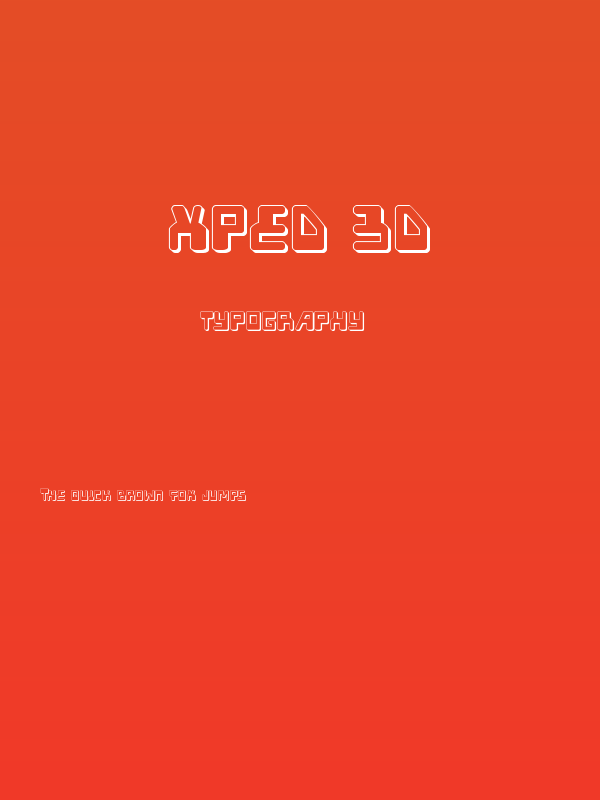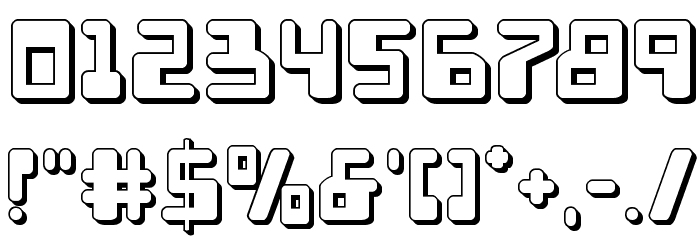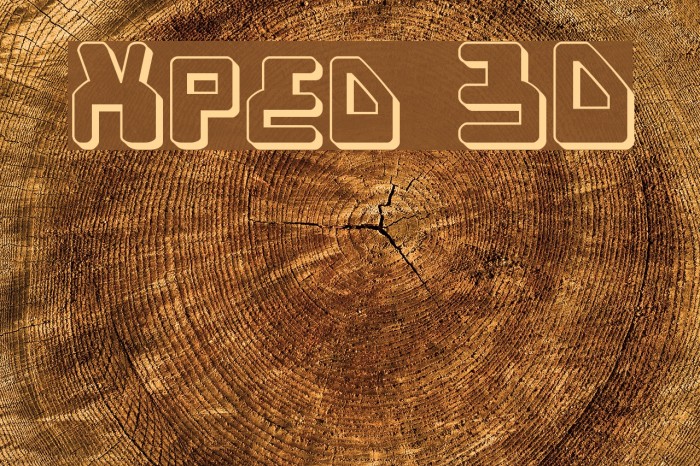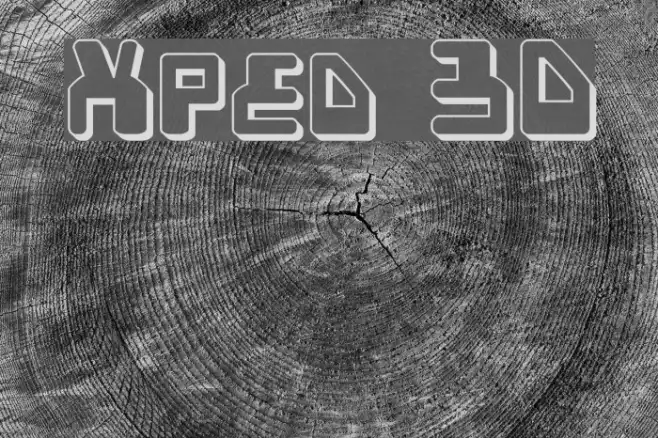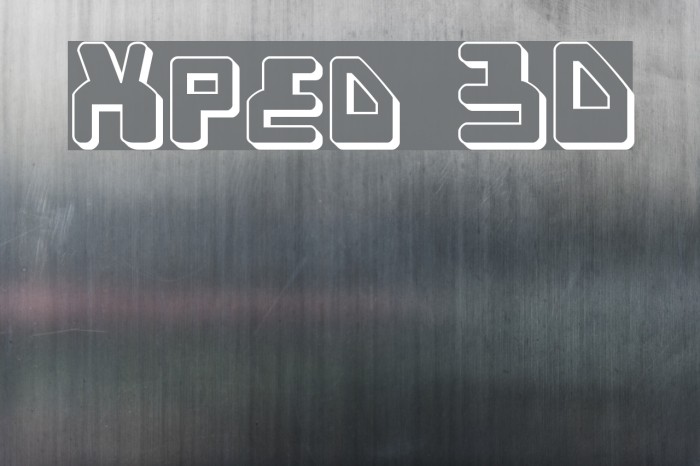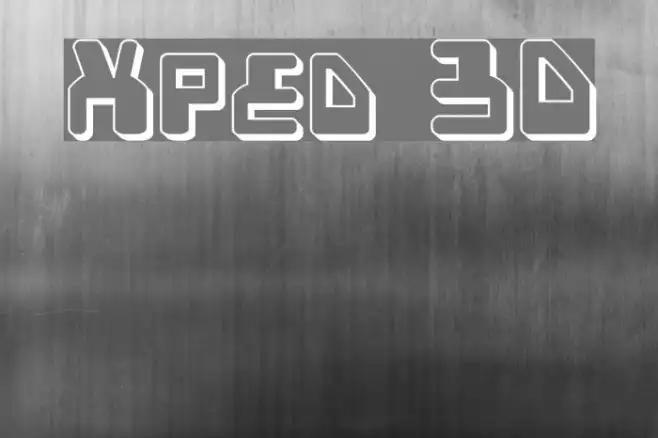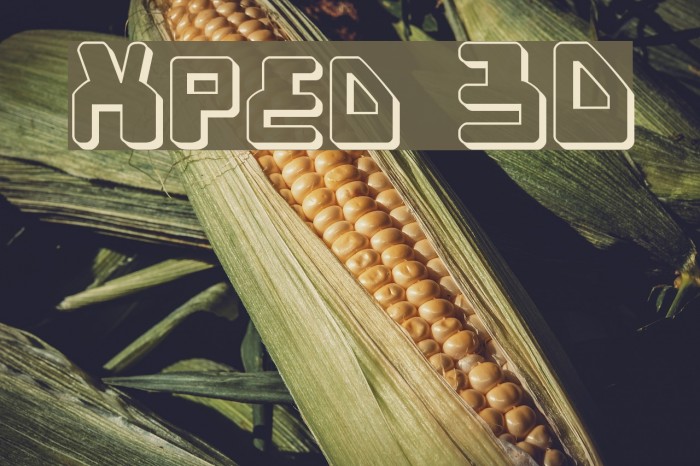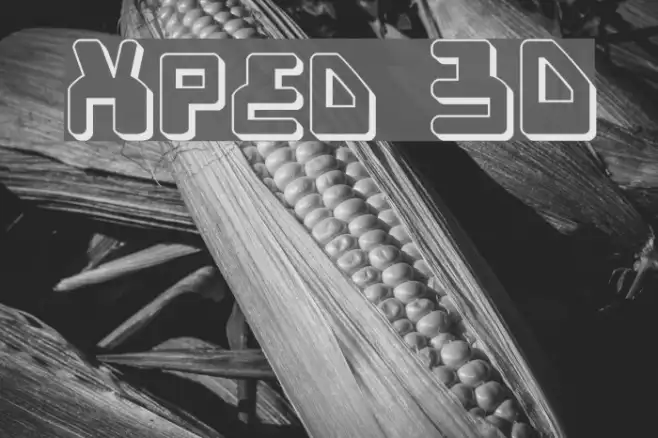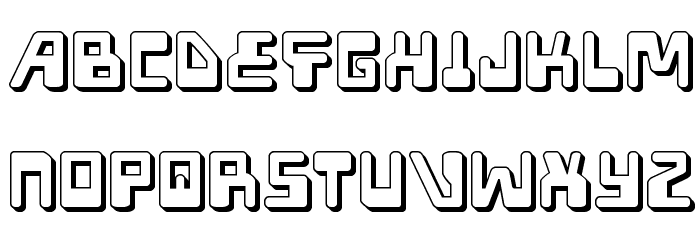
Xped 3D Font
Xped 3D Description
This font features a bold, three-dimensional style with a distinct outline that gives each character a sense of depth and structure. The uppercase letters are designed with a geometric precision, incorporating sharp angles and clean lines that create a futuristic and dynamic appearance. The lowercase letters maintain the same structural integrity, ensuring consistency across all text. Numbers and special characters are equally bold and well-defined, making them stand out effectively. The overall design is modern and eye-catching, suitable for projects that require a strong visual impact.